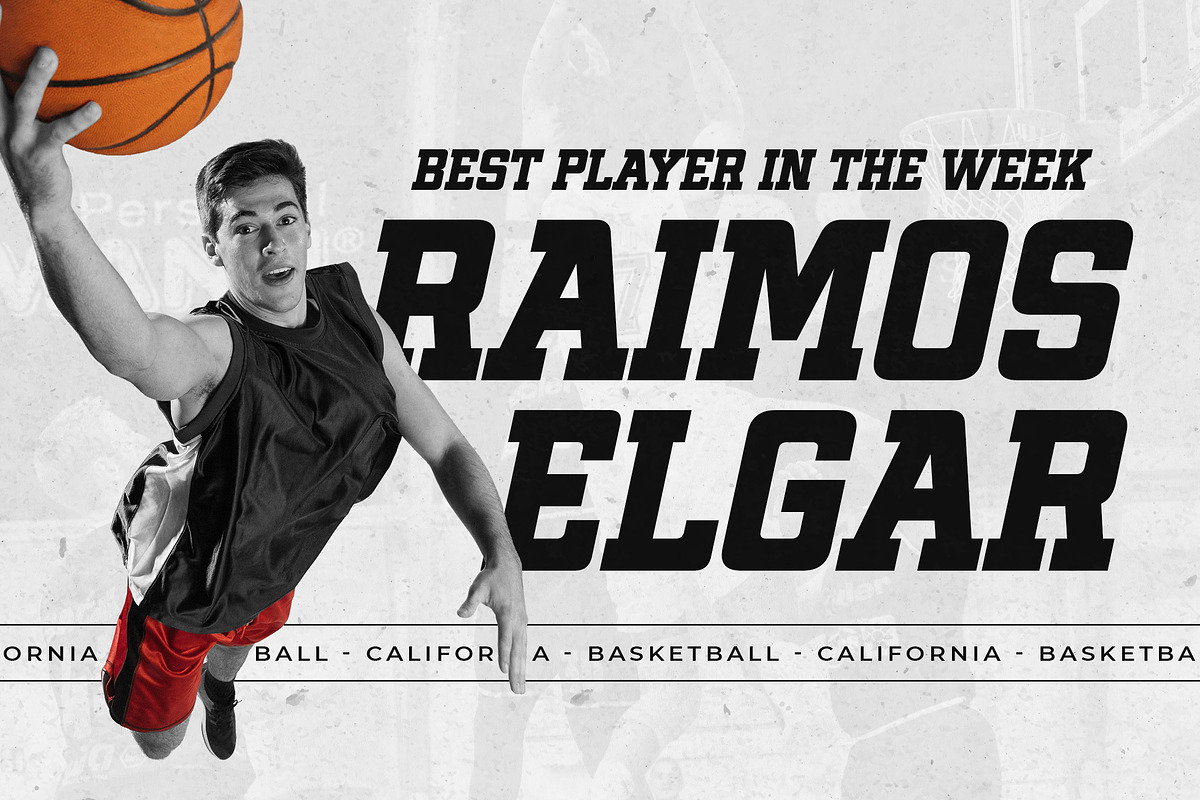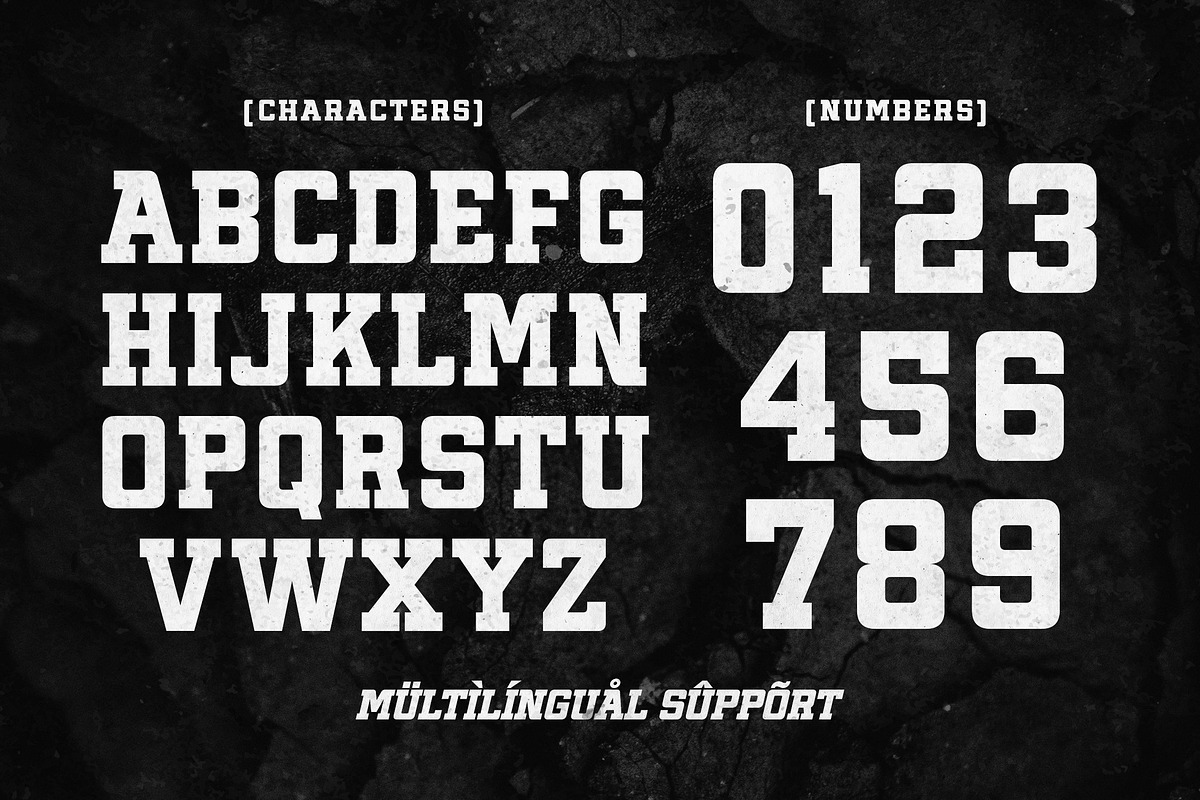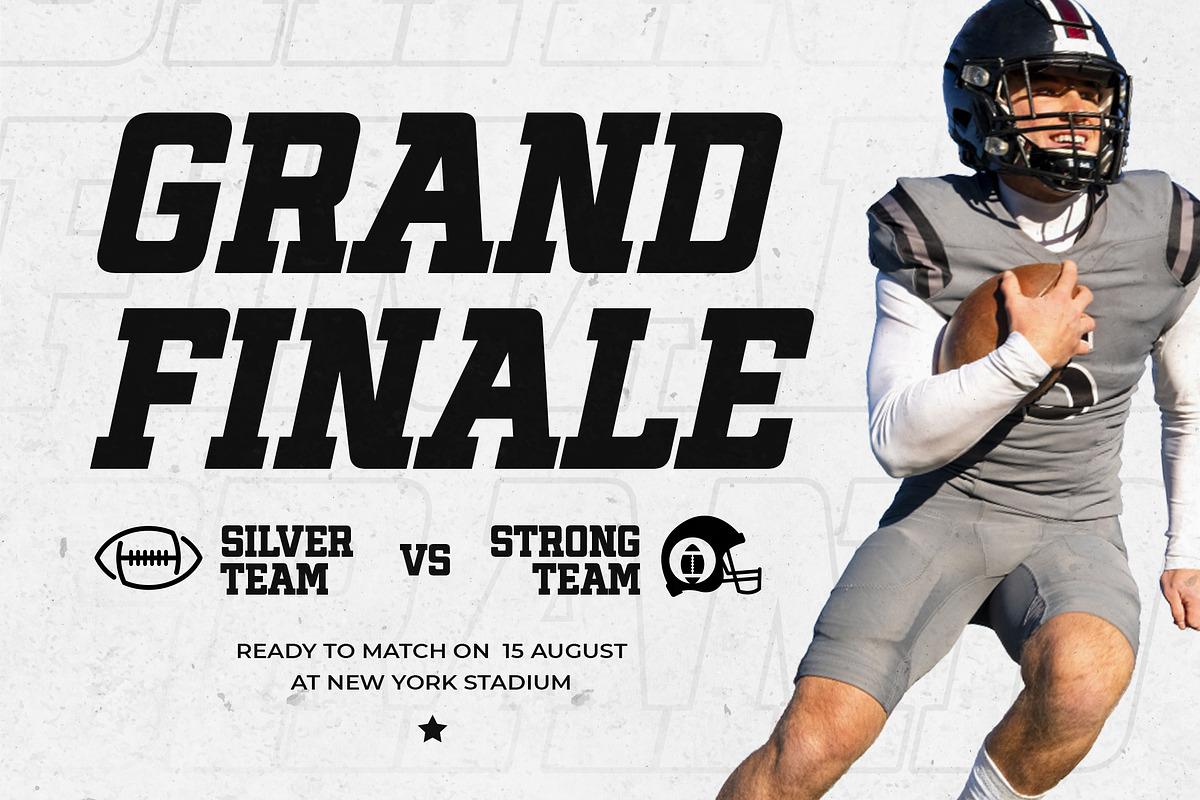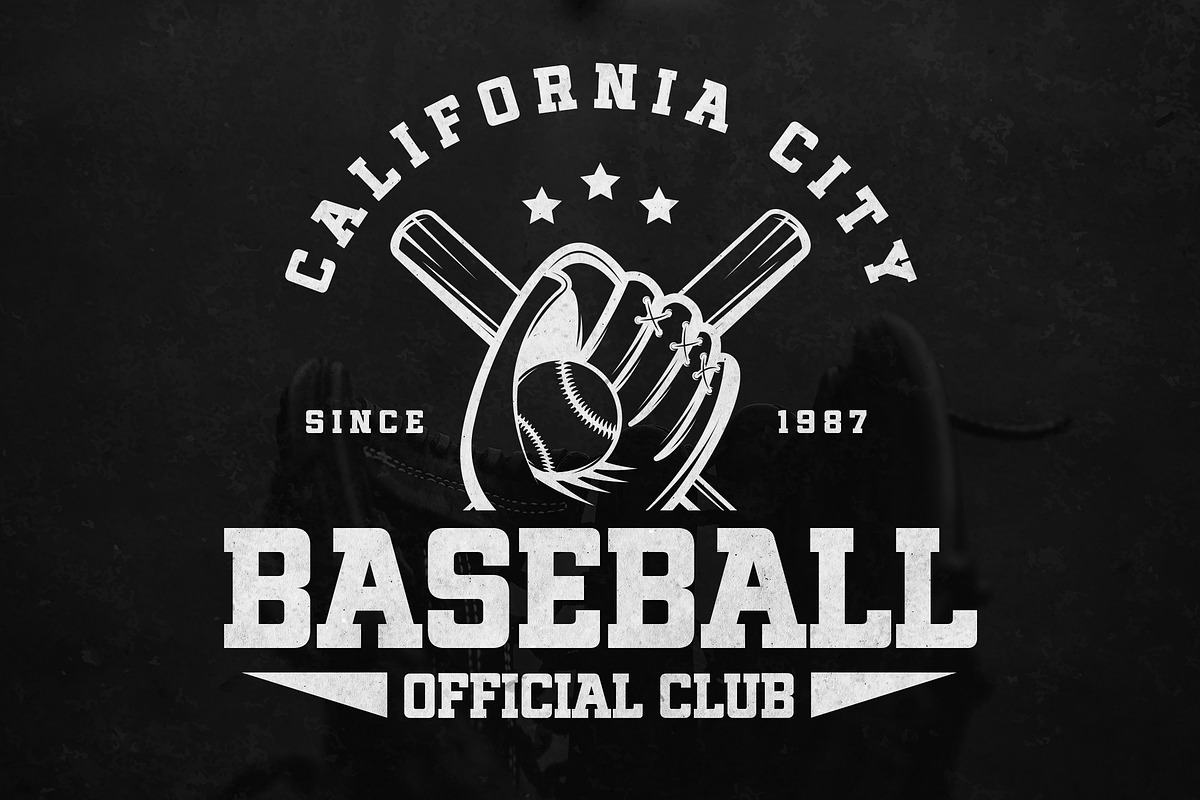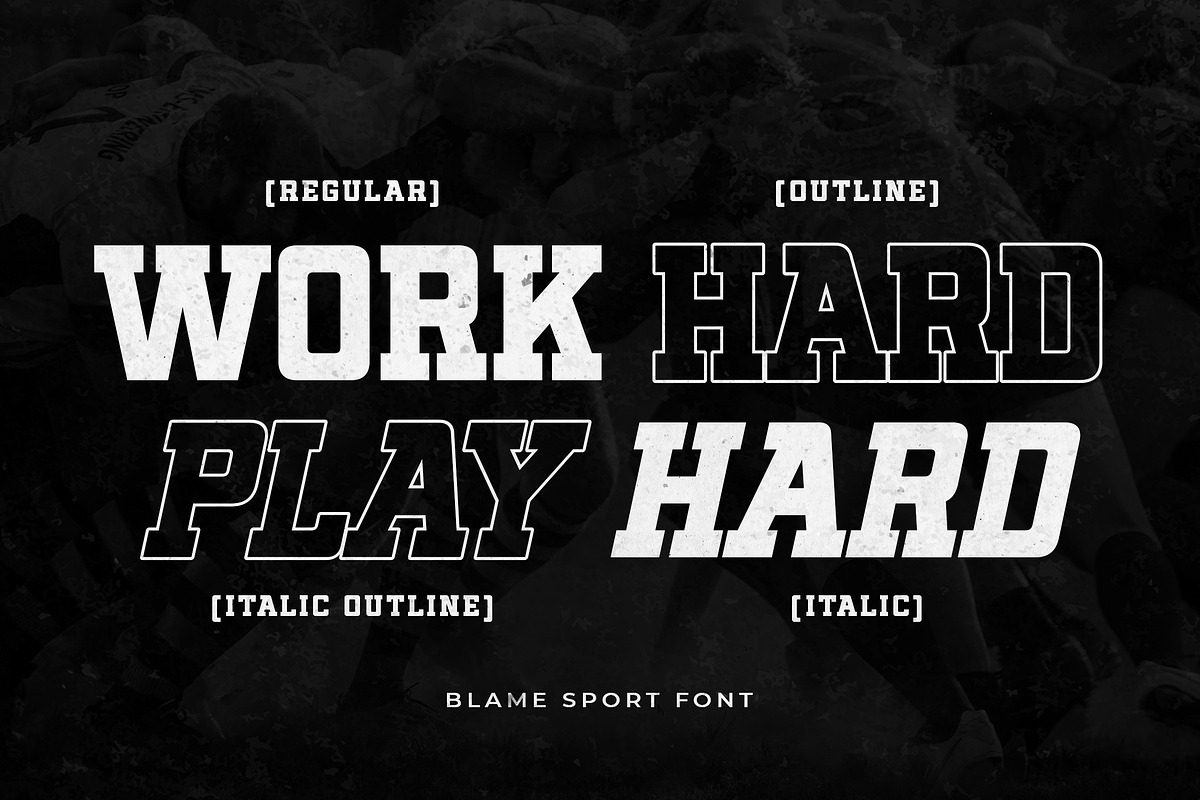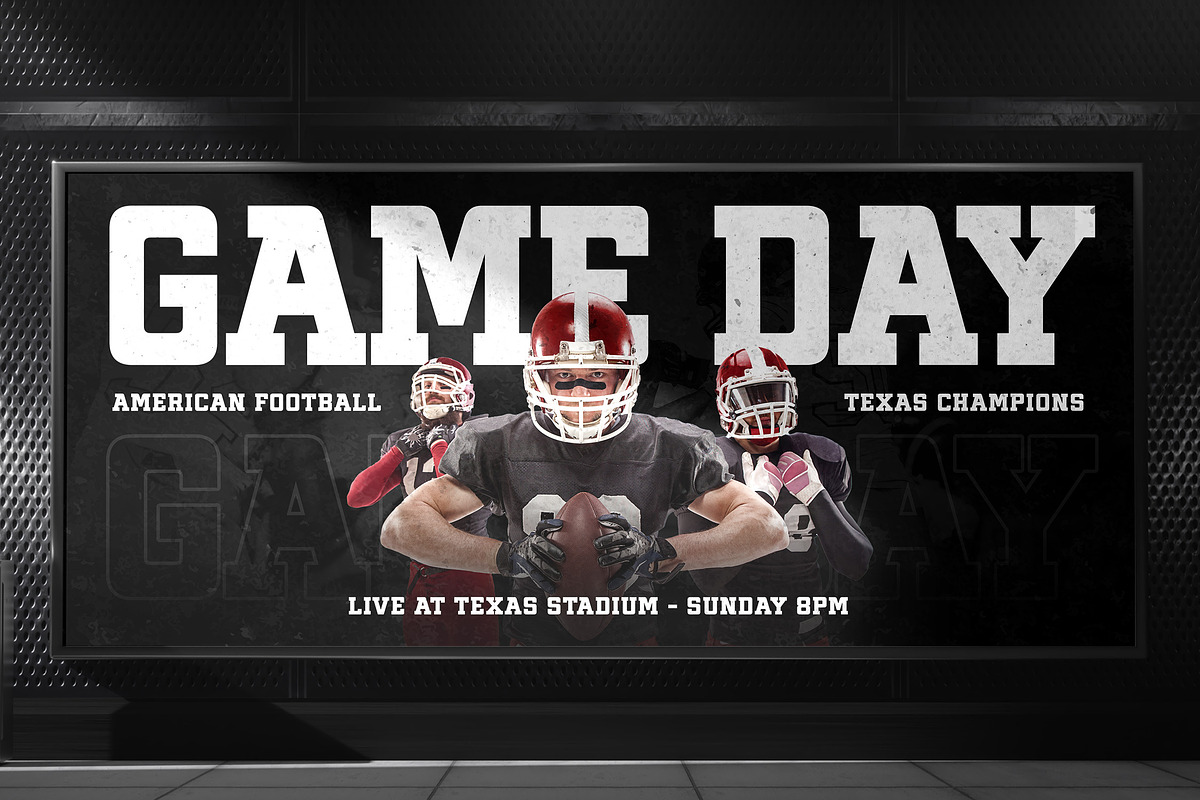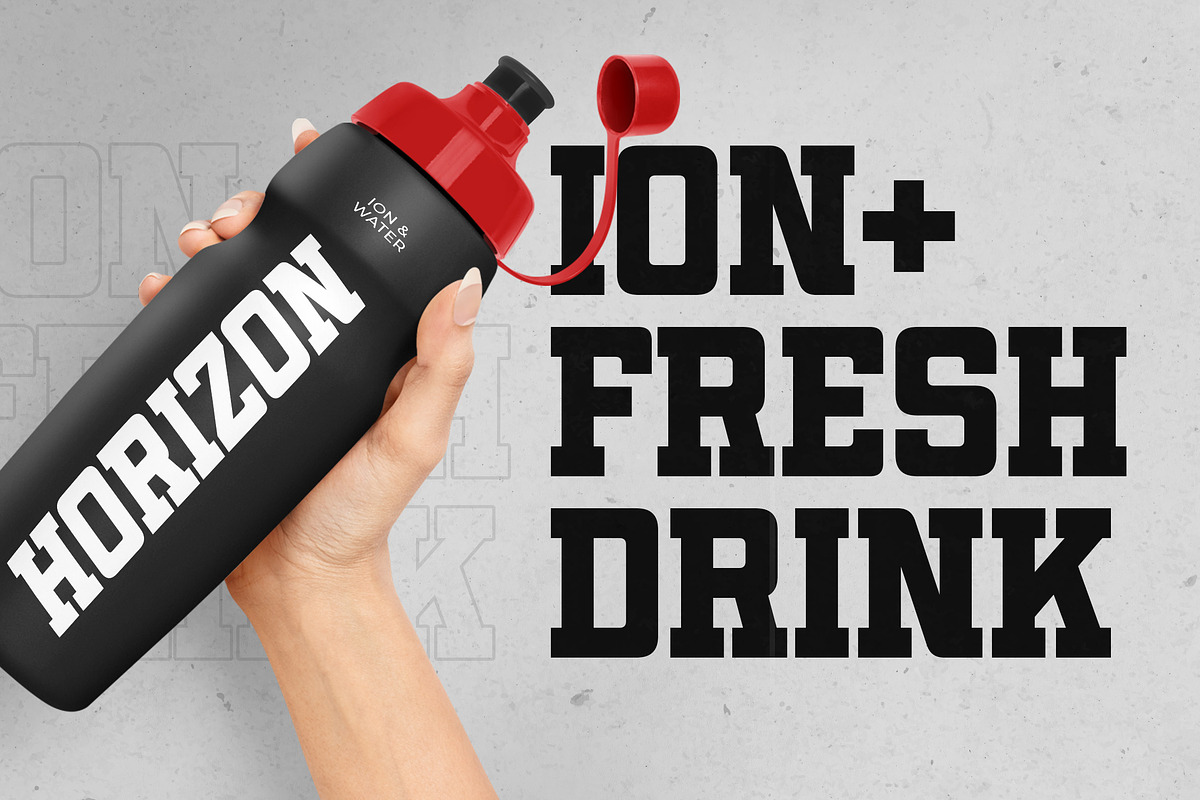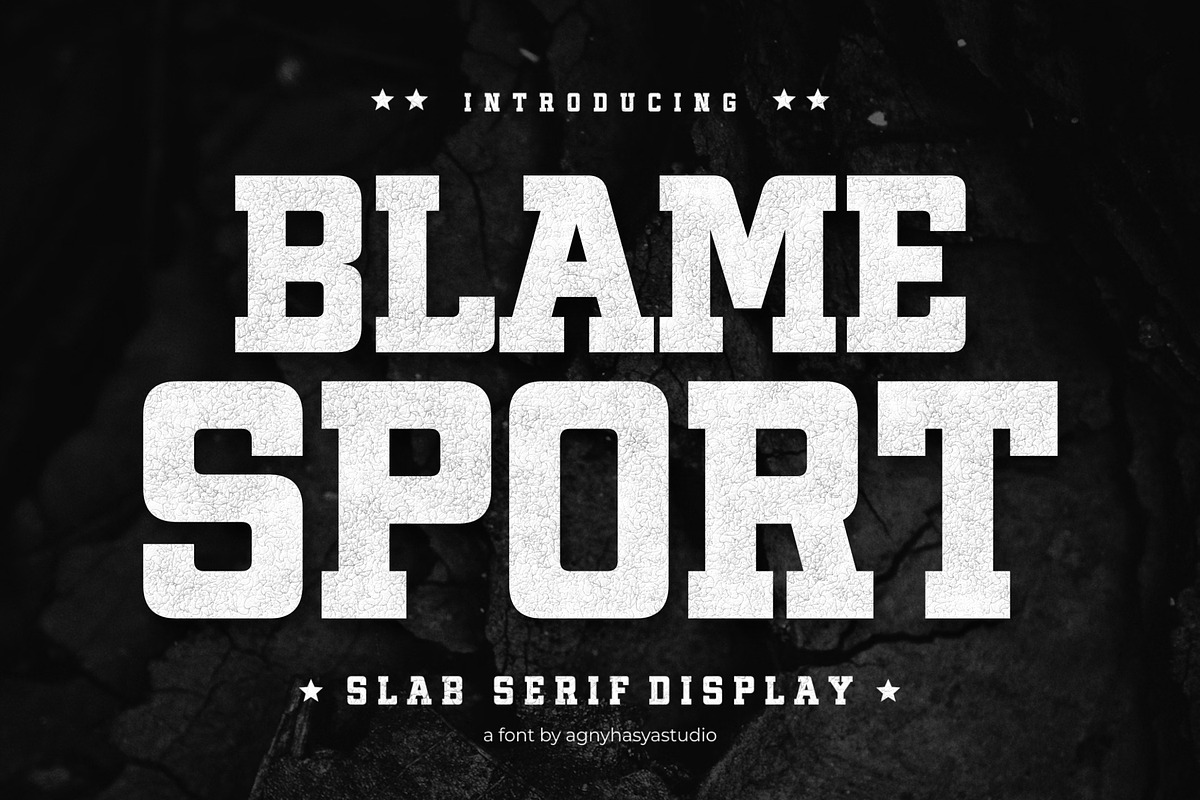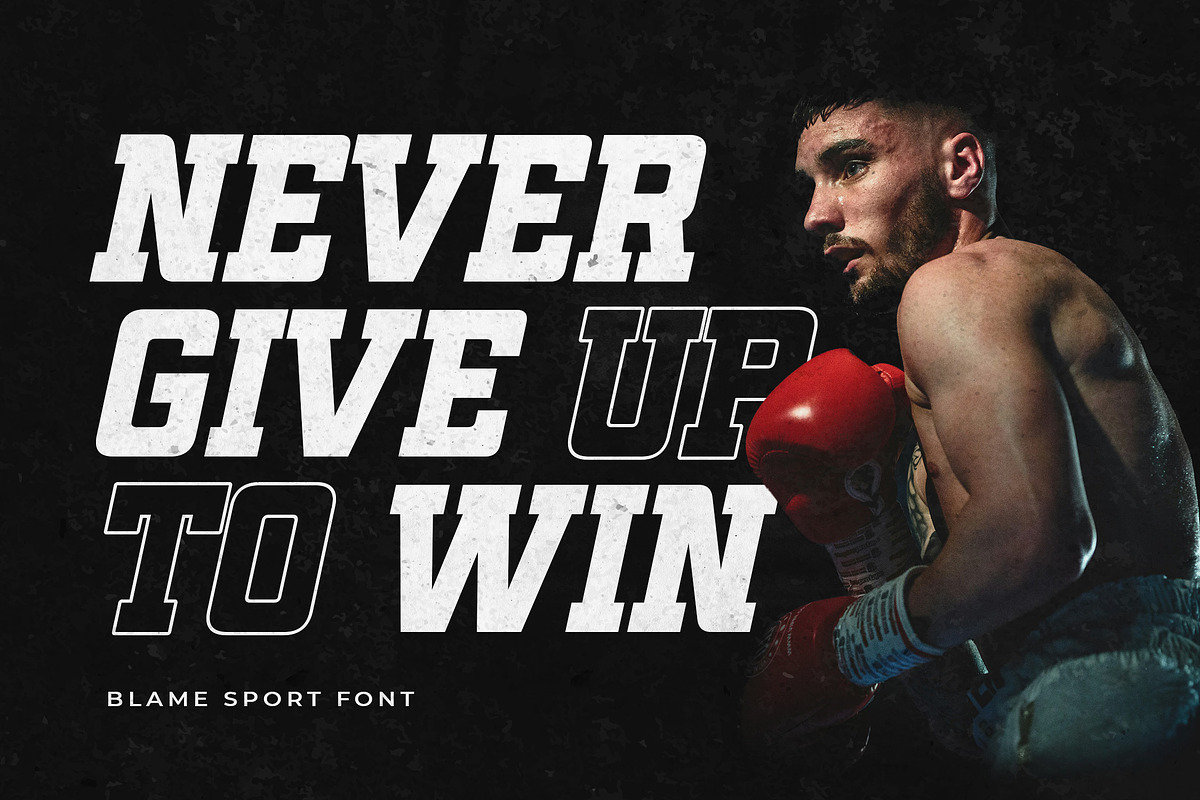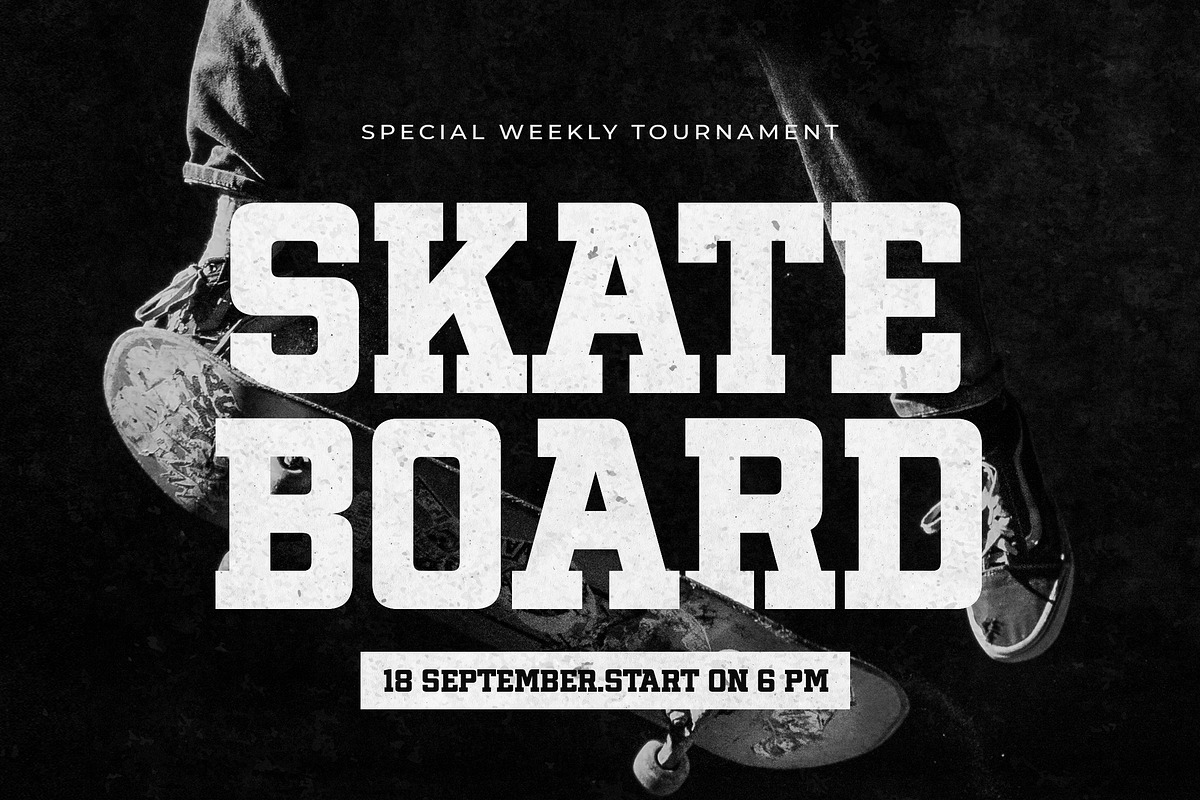
Blame Sport
Introducing Blame Sport - a contemporary athletic slab serif typeface. This font masterfully encapsulates the energy and dynamism of competitive sports including American Football, Tennis, and Boxing, and the raw, edgy elements of gym and street culture.
Blame Sport brings the adrenaline rush of fierce competition, the grit of a grueling workout, and the vibrancy of the street right to your design. This unique confluence of strength and style makes this typeface a perfect match for various bold, sporty themes. The extensive versatility of Blame Sport makes it not just a typeface, but an asset to your creative toolkit.
- Uppercase, Lowercase, Numeral & Punctuation
- Alternates and Ligatures